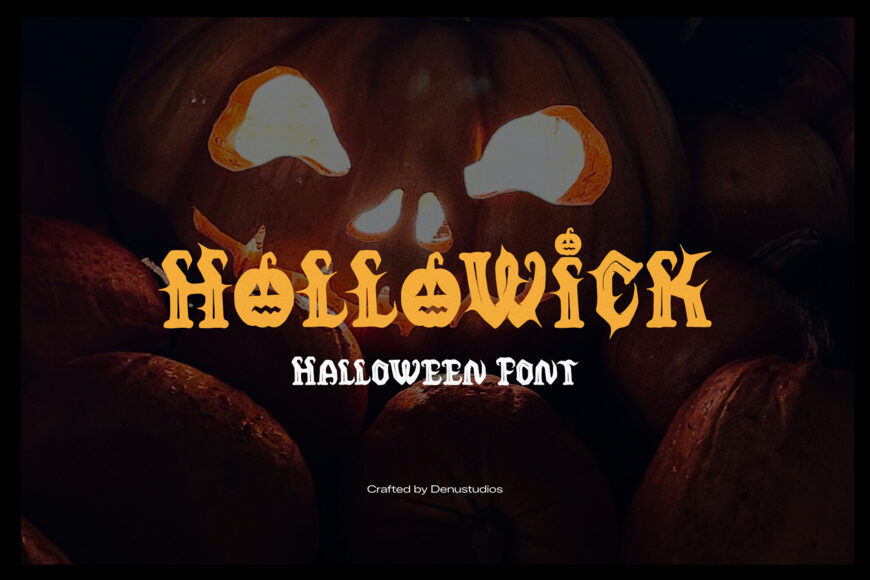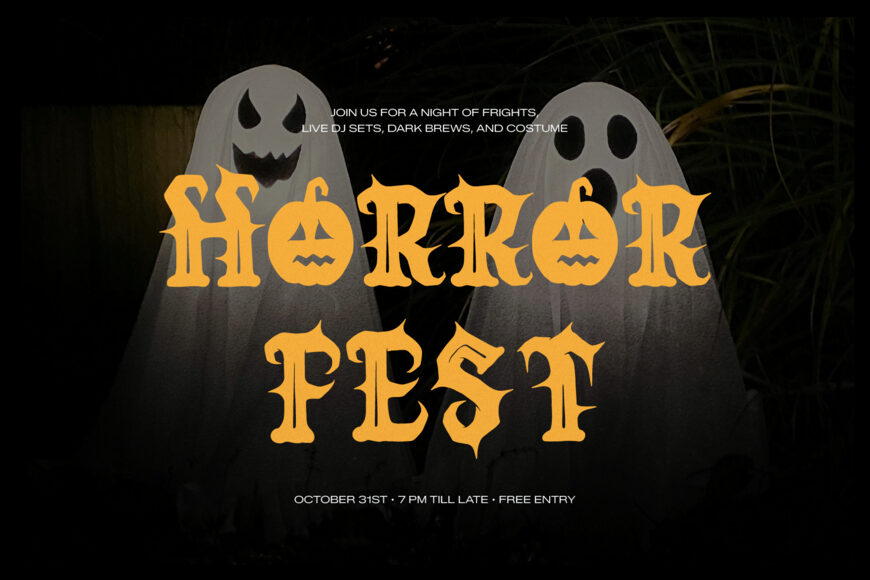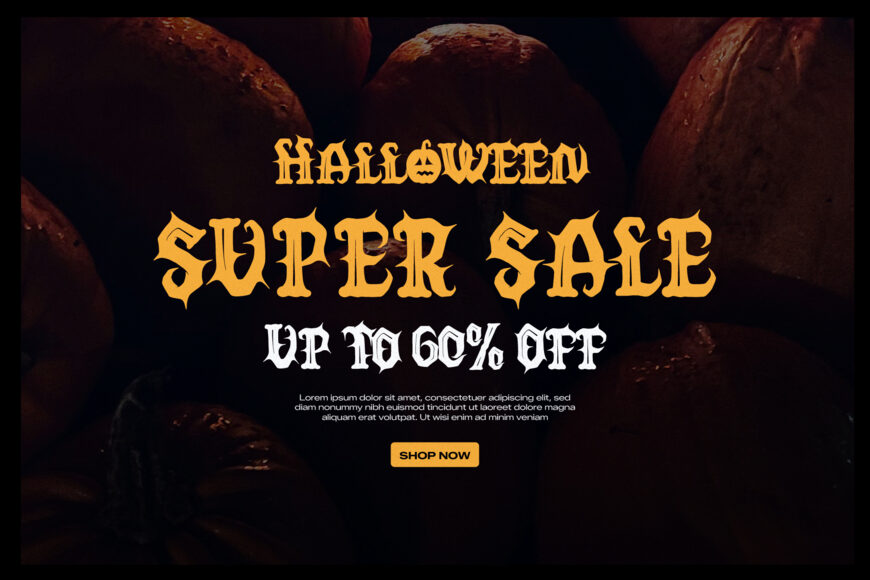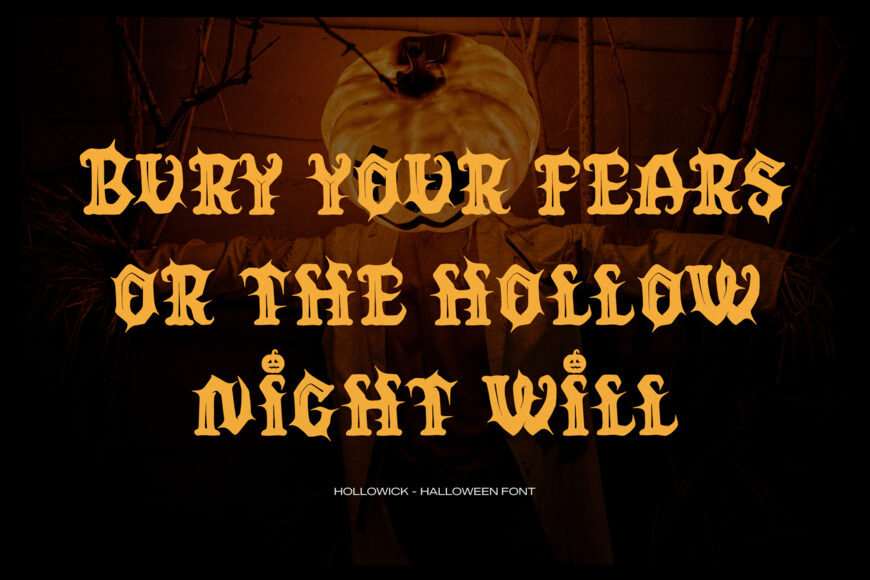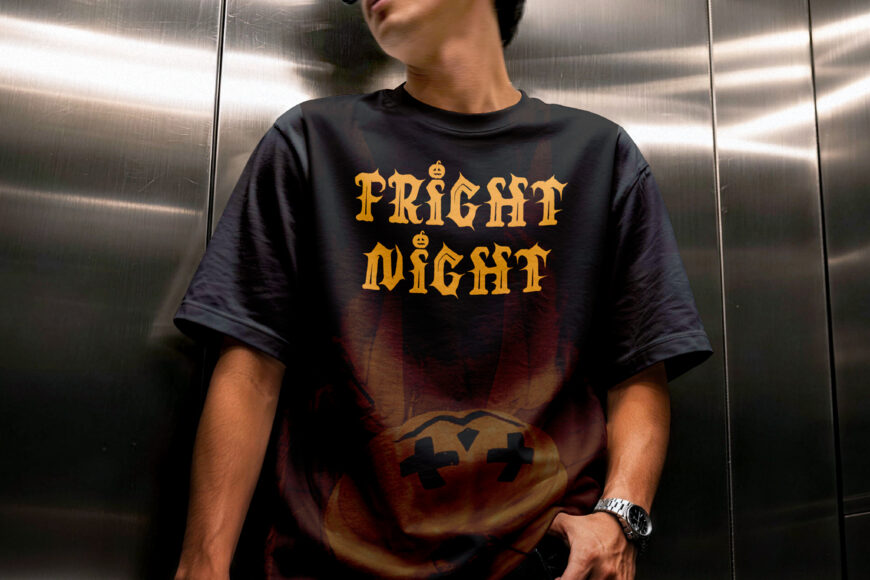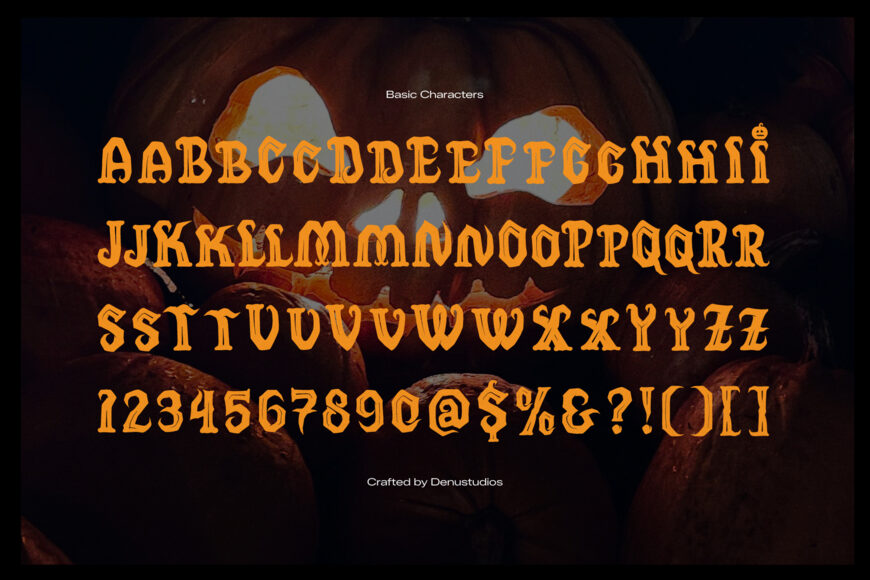
Step into the haunted woods and evoke classic horror nostalgia with Hollowick! Crafted by Denustudios, this spooky blackletter display font combines jagged gothic stems, flickering flame-like spurs, and carved jack-o’-lantern face cutouts hidden inside letter counters and dotting the ‘i’. Its eerie, pumpkin-patch atmosphere turns seasonal headlines into instant spooky showstoppers.
Perfect for Halloween party invitations, pumpkin patch signage, haunted house flyers, trick-or-treat apparel, horror movie graphics, sticker packs, and custom Cricut or Silhouette craft SVG projects!